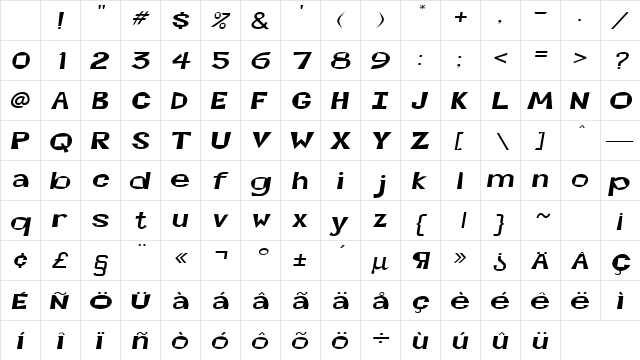
KweilinExtend is a composed and adaptable typeface that performs quietly and consistently across a wide range of design contexts. The slanted form adds forward momentum and visual energy.
Pro Tip: Use KweilinExtend for emphasis, pull quotes, and subheadings where its slanted energy can add rhythm to the layout.